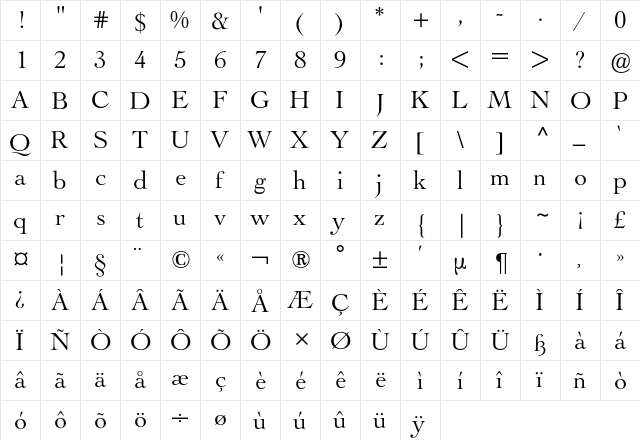
Le Cochin BQ Regular
Design Context for Le Cochin BQ Typeface
Le Cochin BQ offers clean, dependable letterforms without strong stylistic allegiance, making it a practical choice for designers who need flexibility.